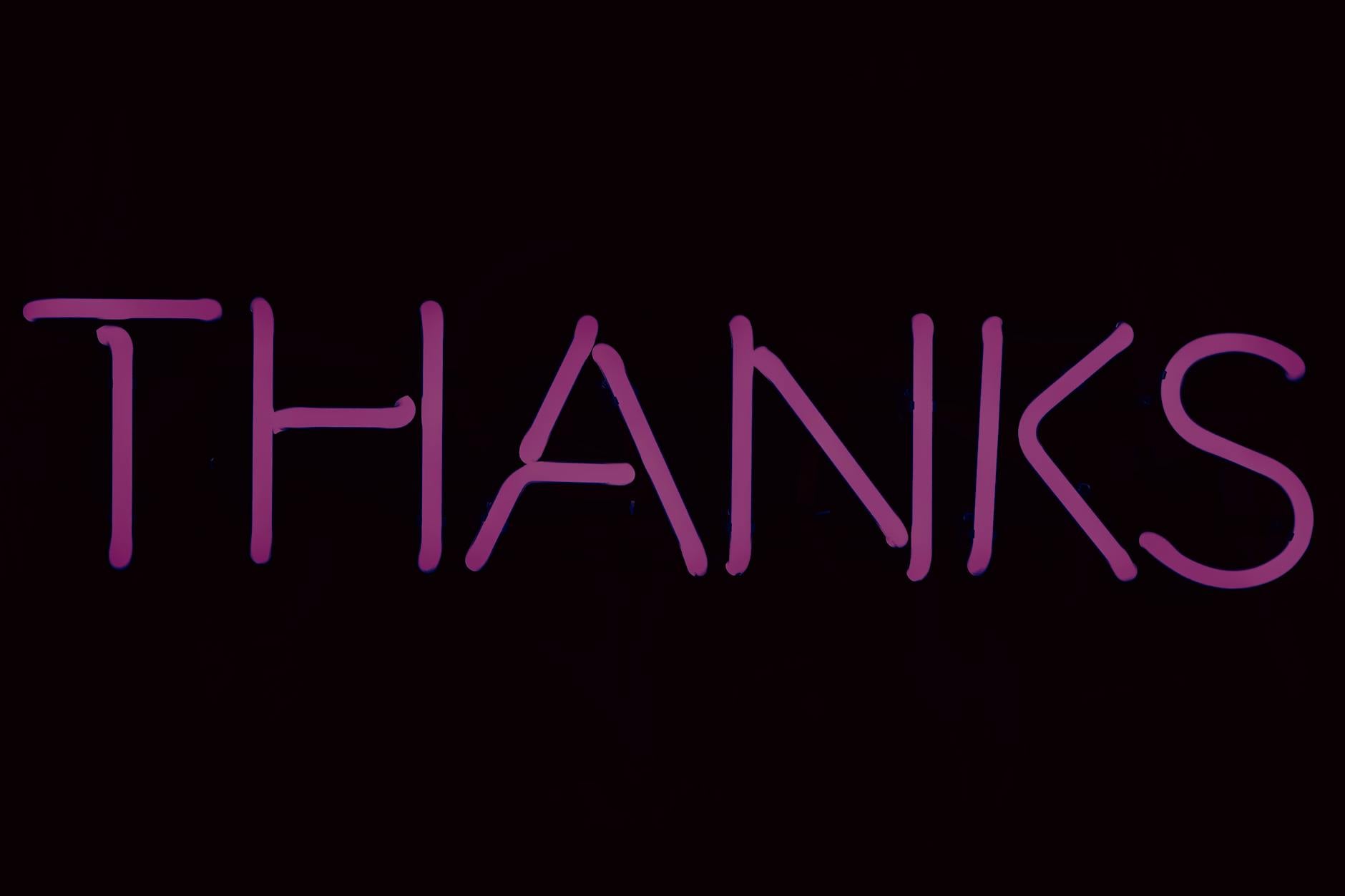
If you’ve ever designed a sleek dark mode interface, you might have noticed something strange. You used the exact same font, size, and weight as your light theme, yet the text suddenly looks heavier, slightly blurry, or bloated.
Your eyes aren't playing tricks on you. This is a well-documented optical phenomenon, and it means your typography needs to lose a little weight when the lights go out.
Let’s dive into the science behind this visual illusion and explore how you can use modern CSS and variable fonts to keep your typography perfectly balanced in both light and dark modes.
This optical quirk is known as irradiation (or the irradiation illusion). First studied in depth by German physicist Hermann von Helmholtz in the 19th century, it describes how our brains perceive light areas on dark backgrounds.
Light-emitting pixels on a dark screen bleed outward into the surrounding dark pixels. Because our eyes are imperfect optical lenses, this glowing effect (often called halation) causes the white shapes of letters to physically look larger and thicker to our retinas than dark shapes of the exact same size on a light background.
The result? A font weight of 500 (Medium) that looks elegant and highly readable on a white background suddenly looks like a muddy 600 (Semibold) on a dark grey background. It reduces legibility, crowds counter spaces (the negative space inside letters like o, e, and a), and increases cognitive fatigue for your users.
To counter this illusion, the intuitive fix is to reduce the CSS font-weight. If your light mode uses font-weight: 500, you might try lowering it to font-weight: 400 in dark mode.
While this works, standard font weights have a major drawback: they change the physical bounding boxes of the letters.
When a typeface changes from Medium to Regular, the characters get narrower. On a text-heavy page, switching between light and dark mode will cause the text to reflow, shifting paragraphs, lines, and container heights. This triggers Cumulative Layout Shift (CLS), which harms both the user experience and your SEO performance.
This is where variable fonts save the day.
Many high-quality variable fonts include a custom axis called Grade (GRAD). Grade is specifically designed to adjust the optical weight (thickness) of a typeface without changing its physical width or layout metrics.
When you change the grade of a variable font, the letters get thinner or thicker, but the text takes up the exact same amount of horizontal space. Zero layout shift, 100% visual harmony.
If you are using a variable font that supports the Grade axis (such as Roboto Flex, Inter, or Heuristica), you can seamlessly adjust your typography for dark mode using the font-variation-settings property.
By dialing down the 'GRAD' setting to a negative value (typically between -20 and -100, depending on the typeface), you instantly neutralize the irradiation illusion. The text retains its perceived visual weight, rendering with identical clarity to its light-mode counterpart.
Because light text glows outward in dark mode, the spaces between the letters also appear smaller. This tight kerning can make text look cramped and hard to scan.
In addition to adjusting your font weight or grade, it is highly recommended to slightly increase the letter-spacing in your dark mode styles. A tiny fraction of an em is usually all it takes to restore breathing room to your body copy:
Great typography is invisible; it should never call attention to its own technical limitations.
By understanding the physiological quirks of how humans perceive light and dark, you can elevate your design system. Utilizing variable font grades and subtle letter-spacing adjustments ensures that your content remains incredibly crisp, beautifully balanced, and highly readable—no matter what theme your users prefer.